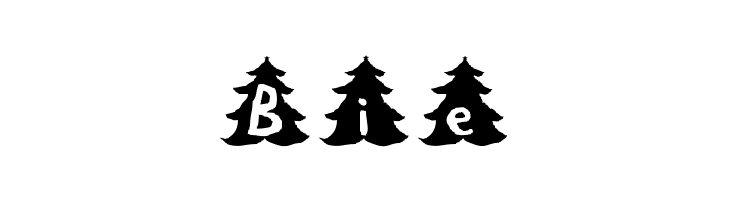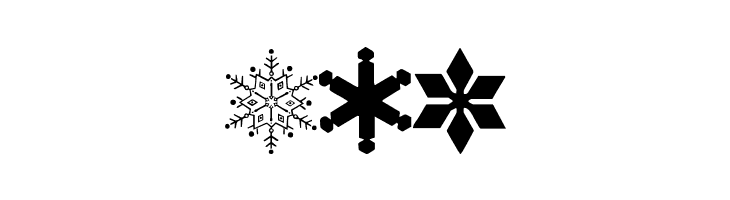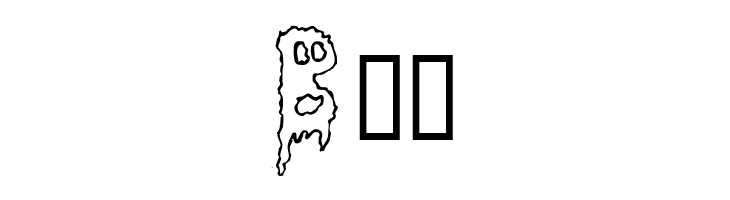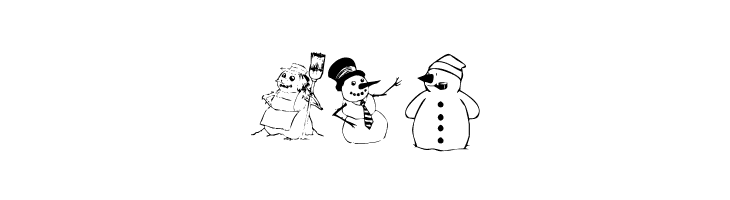
A whimsical, decorative font featuring picnic and party-themed illustrations.
An ornate gothic font with elaborate swirls and bold blackletter elements.
A decorative Celtic-inspired font with intricate, ornate designs.
A bold, decorative font with an eerie, twisted branch design.
A bold, playful handwritten font with a casual and friendly style.
A playful, heart-themed decorative font with romantic doodles and expressions.
A bold, horror-themed font with a dripping, 3D effect.
A horror-themed, dripping font ideal for spooky designs.
A bold, jagged font with a horror-inspired, dripping effect.
A bold, horror-themed font with a dripping, blood-like design and gradient effect.
A bold, jagged font with dripping edges, ideal for horror themes.
A bold, jagged font with a horror-themed, dripping effect.
A bold, horror-themed font with jagged, dripping edges.
A gothic, horror-themed font with dripping elements and a blackletter style.
A spooky, decorative font with jagged edges and eerie cutouts, perfect for Halloween themes.
An intricate, decorative font inspired by ancient glyphs with detailed line work.
A creepy, dripping font perfect for horror themes.
A playful, decorative font with circus-inspired embellishments.
A bold, flowing script font with smooth, rounded edges and dynamic curves.
A bold, dripping font perfect for horror-themed designs.
A decorative font with letters framed by windows and topped with heart symbols.
A dramatic, horror-themed font with sharp edges and dripping elements.
A playful, heart-themed decorative font with bold, rounded characters.
A bold, festive font with winter hats on each character, perfect for holiday themes.
A festive, snowflake-adorned decorative font perfect for holiday themes.
A jagged, eerie font with sharp, needle-like edges and a dripping effect.
A creepy, jagged font with a horror-inspired, dripping aesthetic.